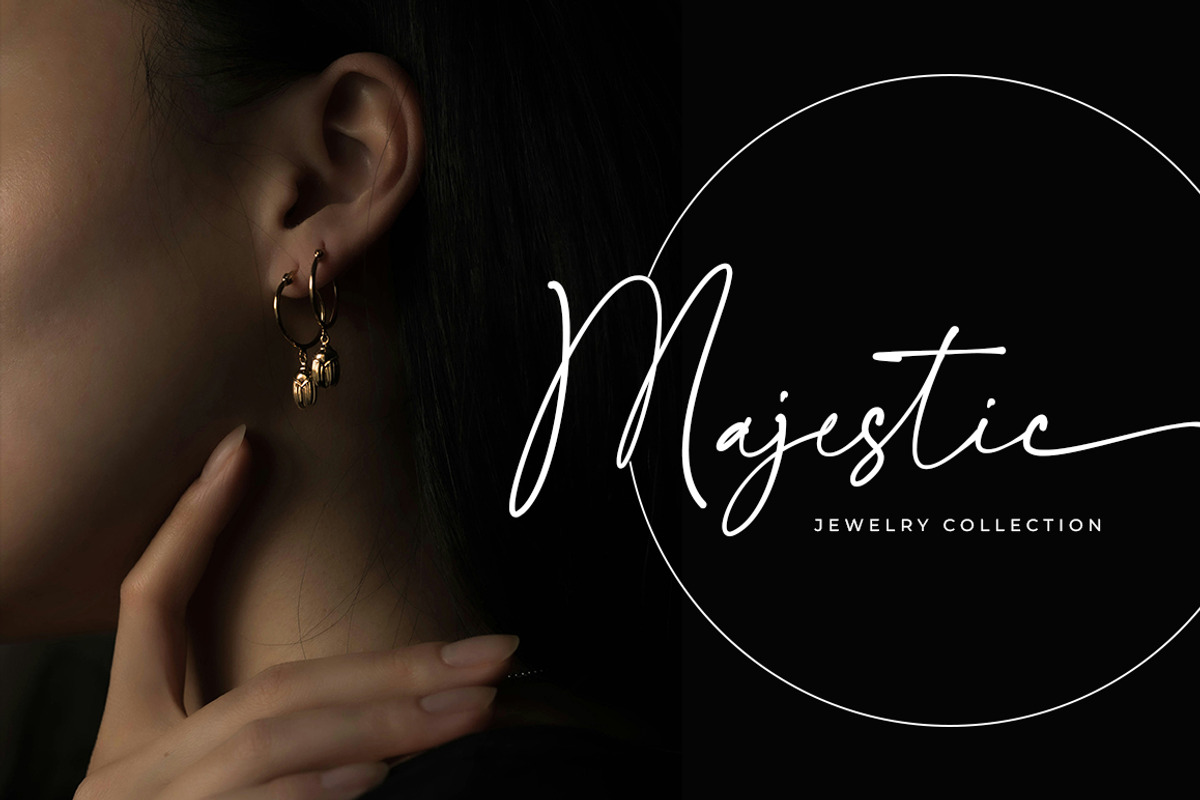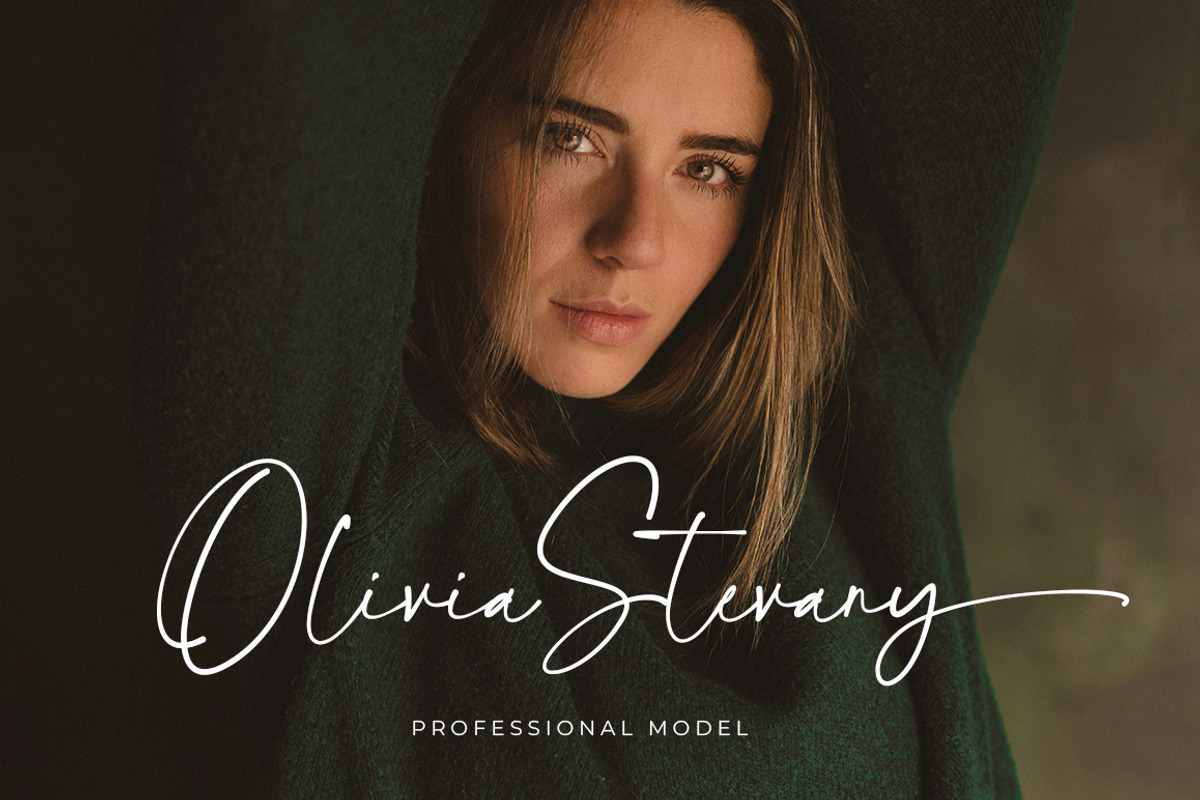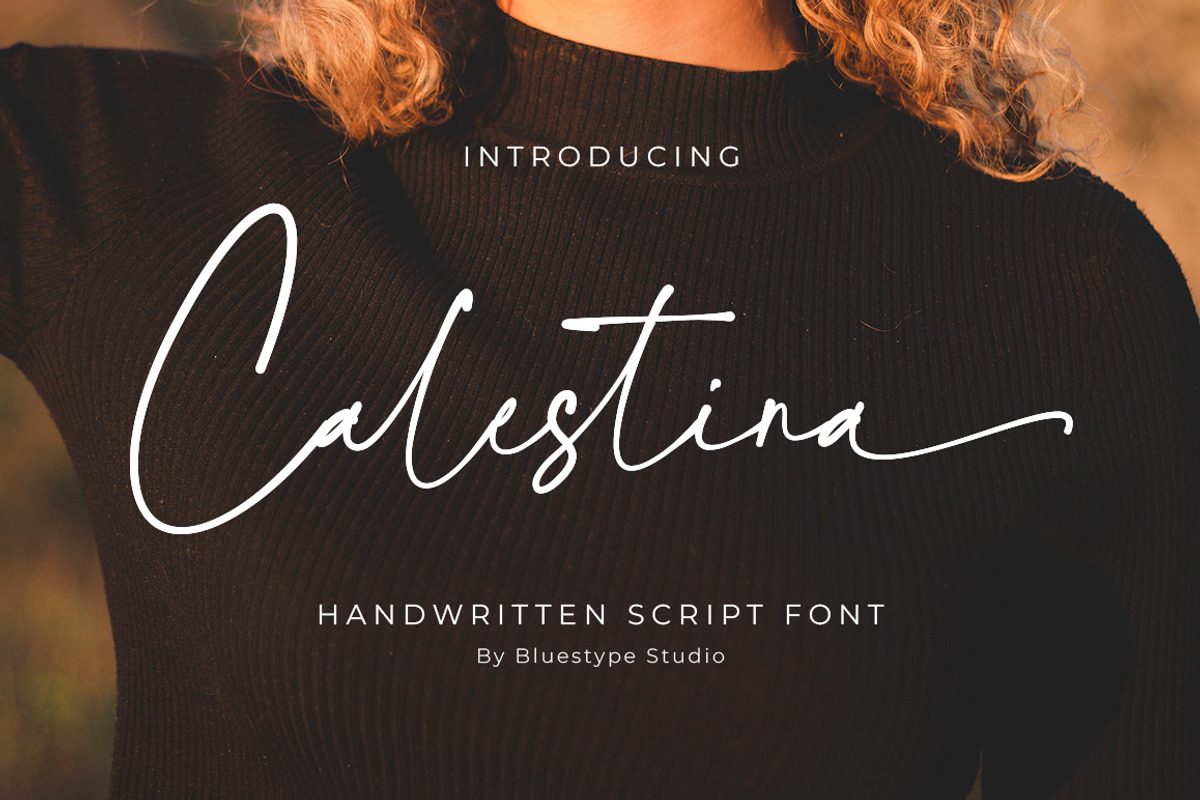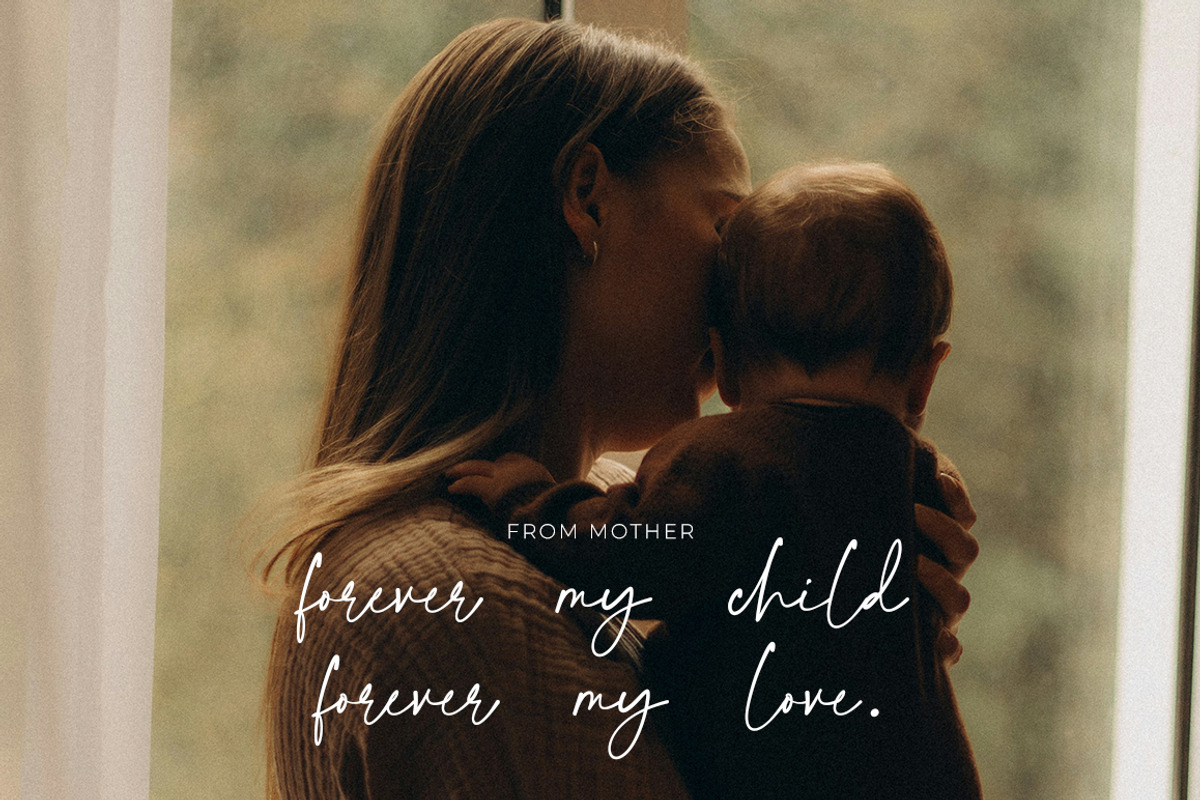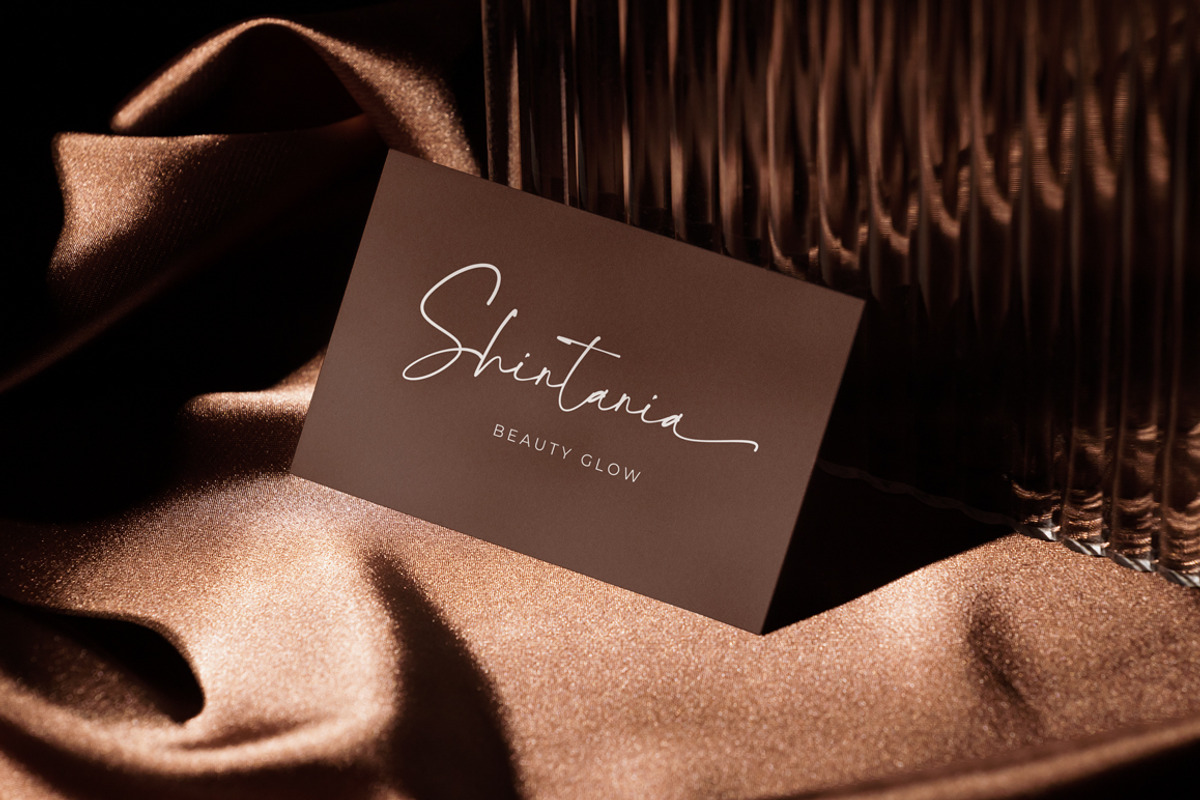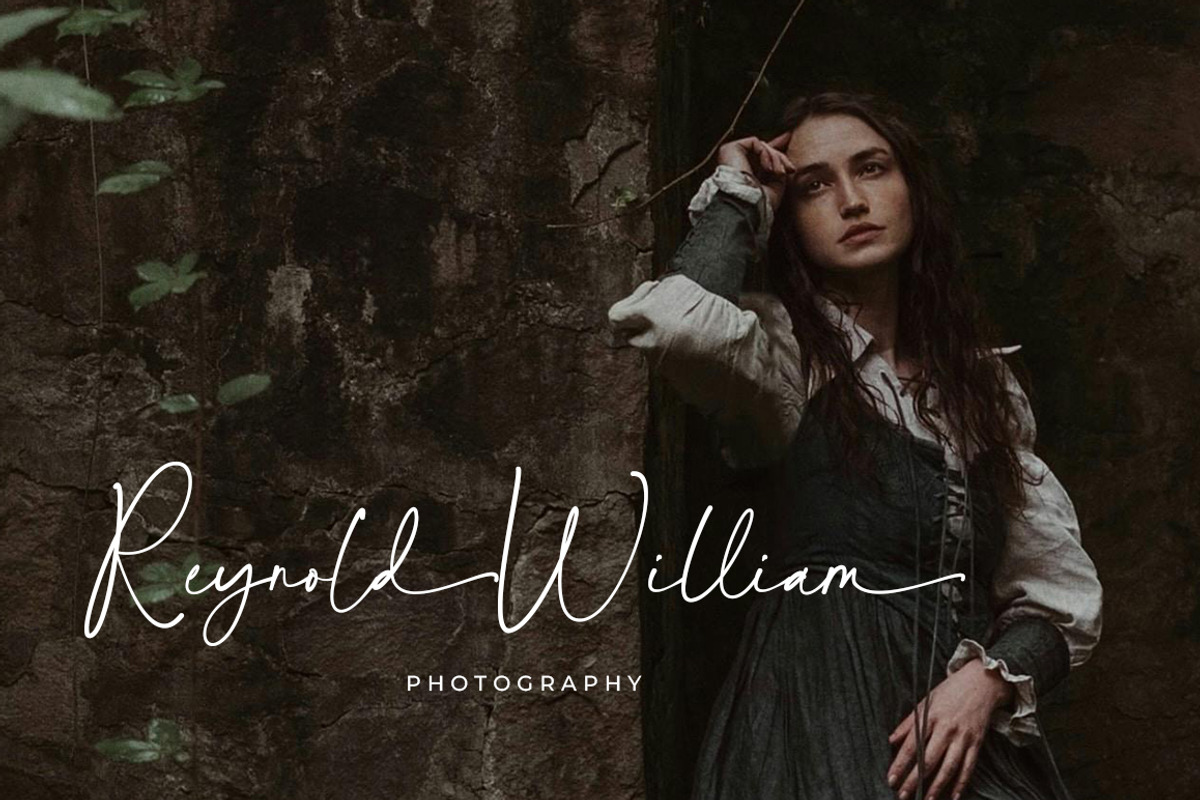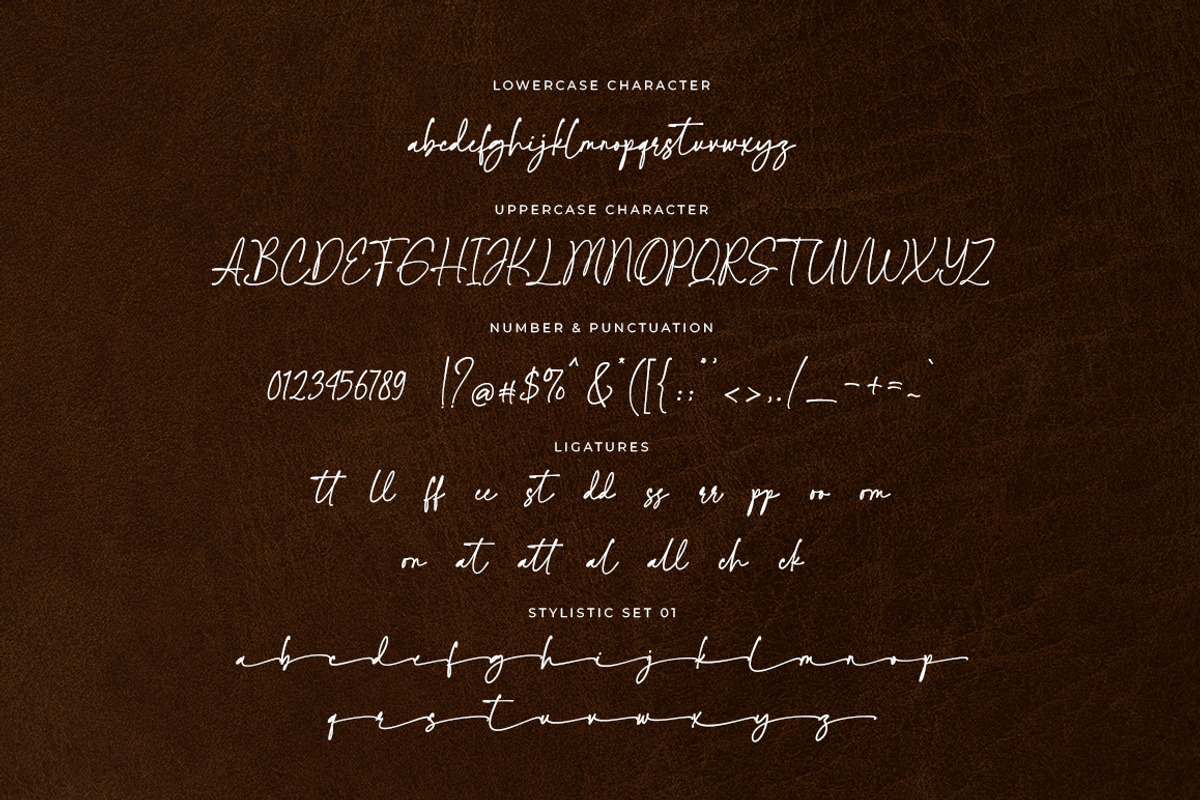
Calestina - Handwritten Script Font
Introducing Calestina - Handwritten Script Font
Calestina is a graceful and stylish handwritten font that captures the essence of natural penmanship with a touch of elegance. Designed with smooth curves and well-balanced strokes, this font exudes warmth, charm, and authenticity, making it a perfect choice for various creative projects.
Whether you’re working on branding, invitations, product packaging, greeting cards, or social media graphics, Calestina adds a personal and sophisticated touch. Its fluid and organic letterforms create a harmonious flow, making your text feel effortless yet refined.
- Stylistic Set
- Support Multilingual
- Number & Punctuation